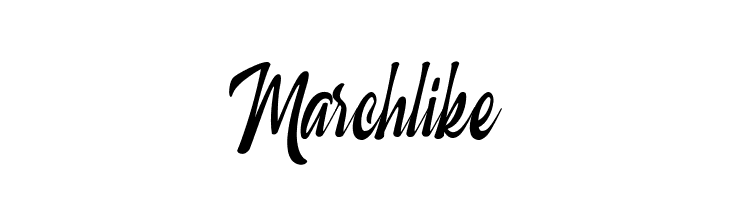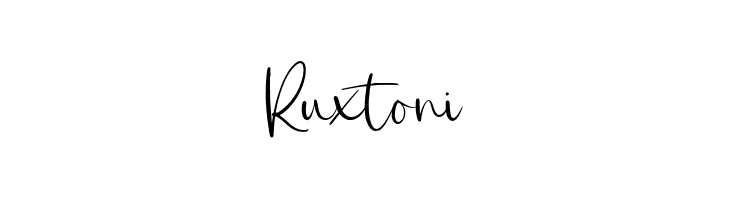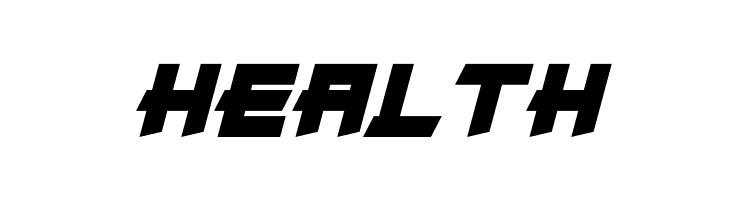
A bold, cursive script font with interconnected letters and elegant flourishes.
An elegant, decorative script font with flowing, interconnected letterforms and ornate flourishes.
A flowing, cursive script with a handwritten, italicized style.
A flowing, cursive script font with elegant, interconnected strokes.
A dynamic and flowing script font with elegant cursive letterforms.
A bold, geometric font with a modern, futuristic style.
An ornate and decorative font with intricate flourishes and unique curves.
A bold, italic font with characters resembling bones, perfect for spooky themes.
A bold, brush script font with an energetic and artistic style.
A bold, decorative font with wing-like extensions and a gothic flair.